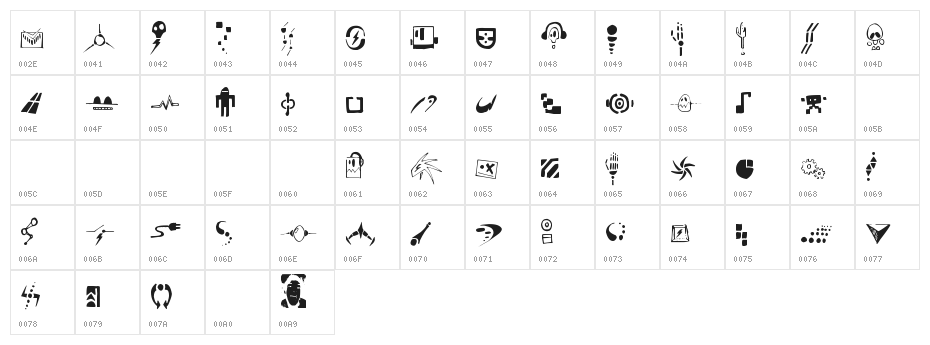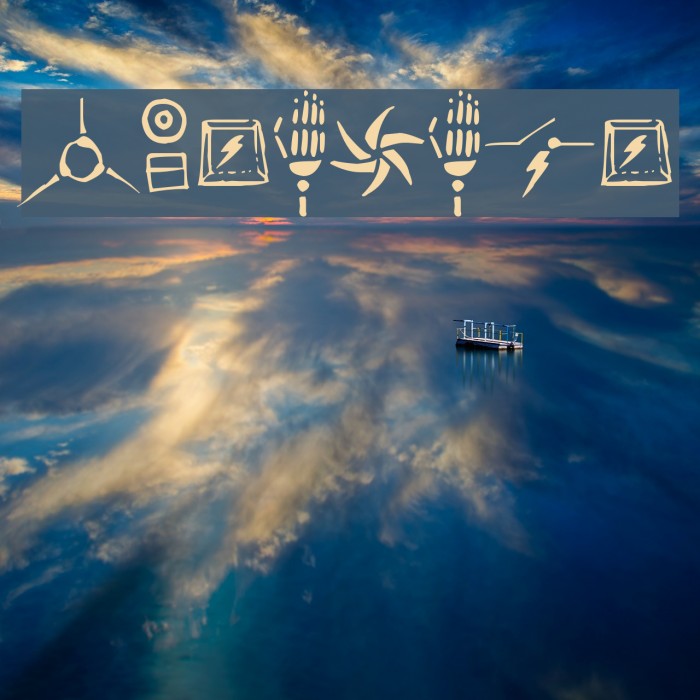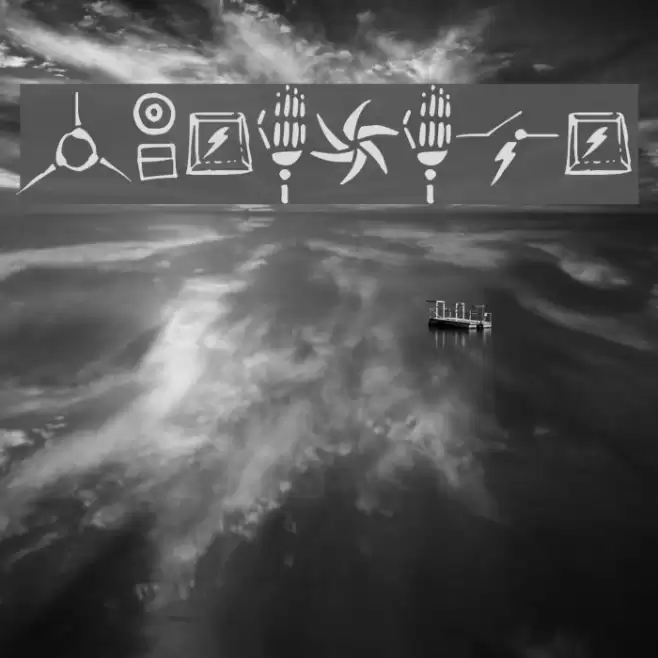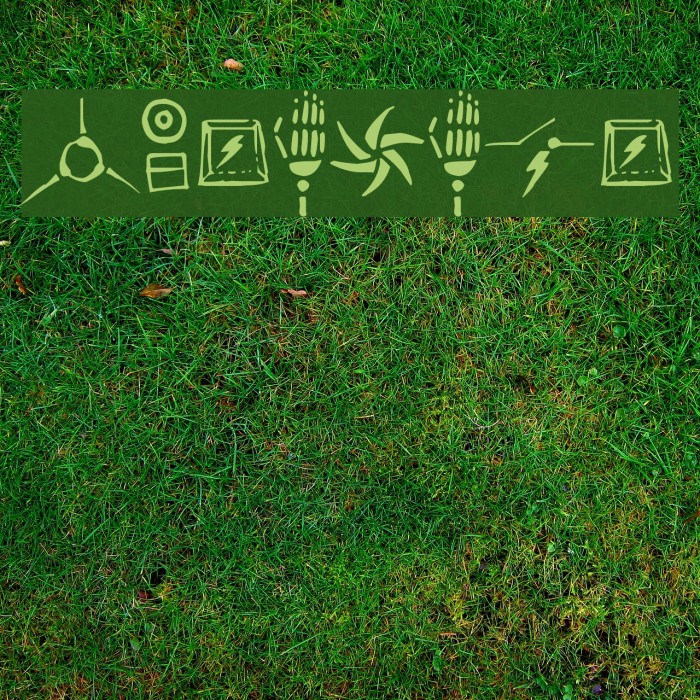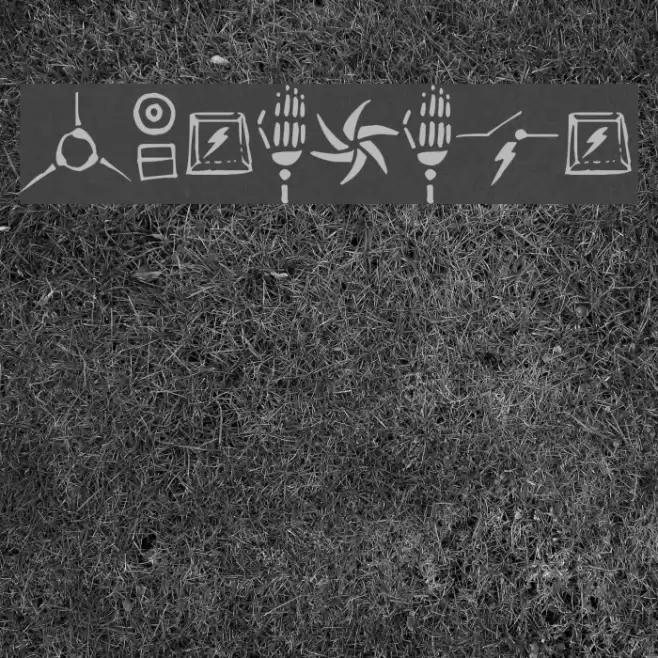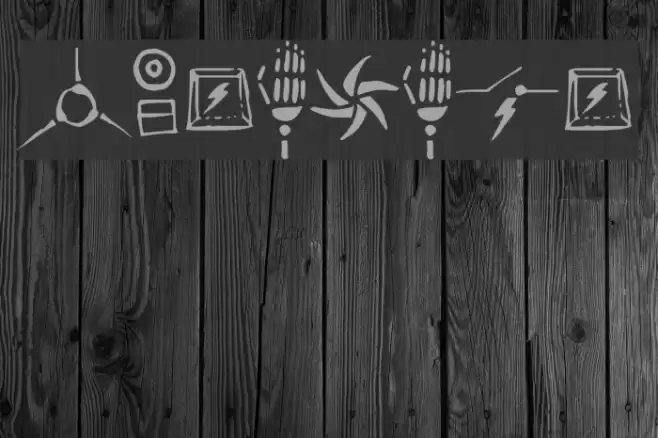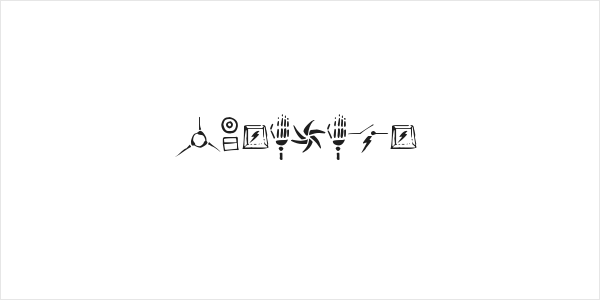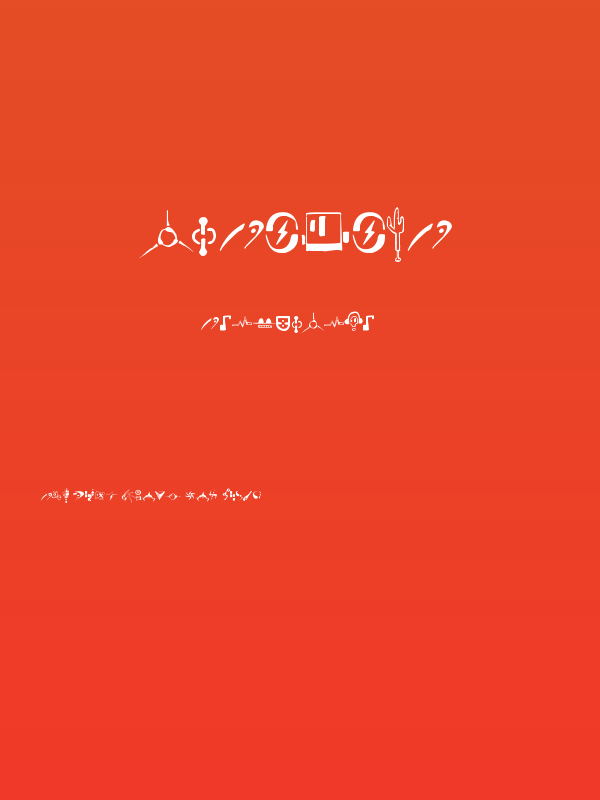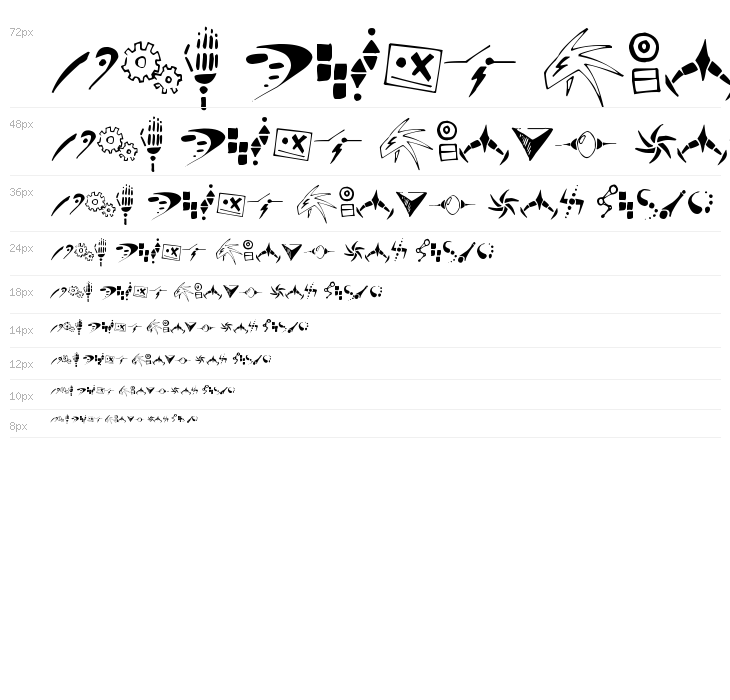
Artefekt Font
Artefekt Description
A highly decorative and abstract dingbat font composed of unique, technology-inspired symbols and pictograms, featuring bold, irregular shapes and a futuristic aesthetic.
| Overall Style | Futuristic, Decorative, Abstract |
| Use Case | Icons, Decorative elements, Logos, Posters |
| Proposed Projects | Posters, album covers, sci-fi or tech branding, digital art, icon sets, experimental design. |